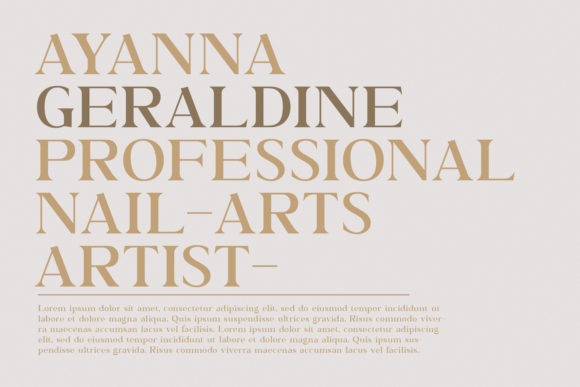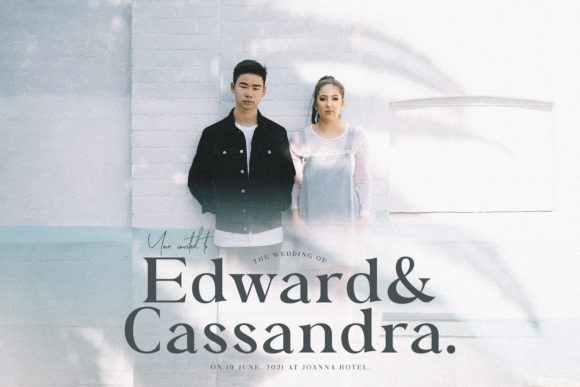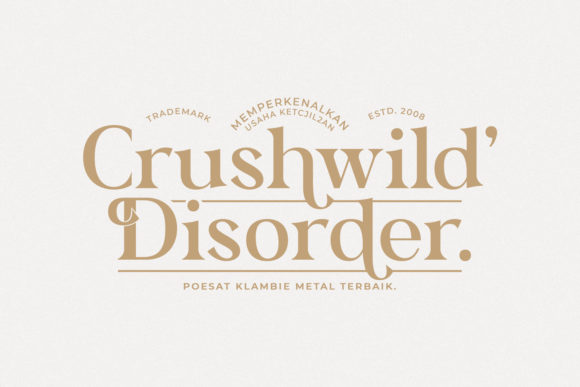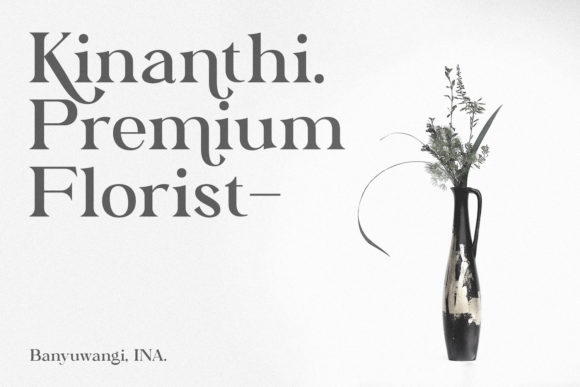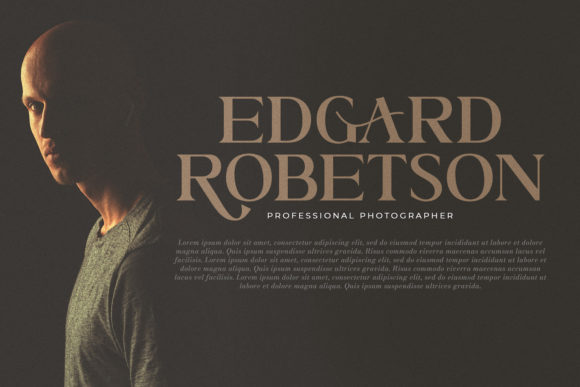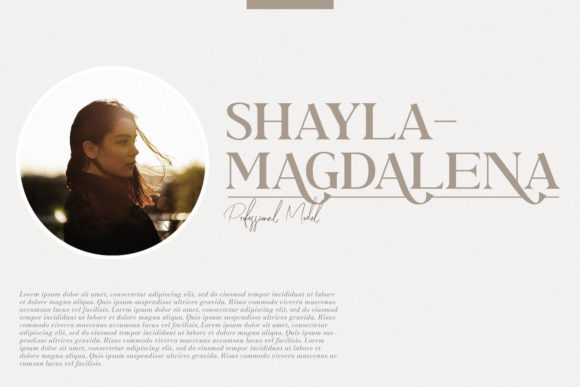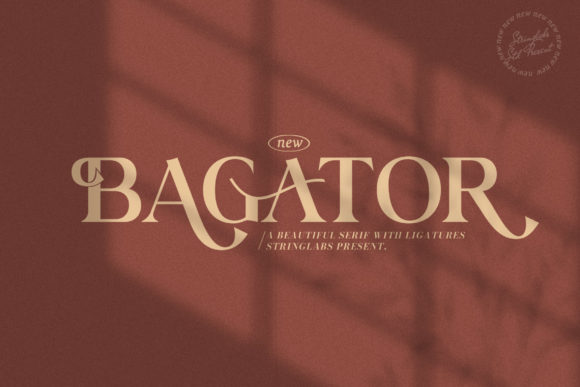
Discover the Elegance of Bagator Font: A Serif Masterpiece
Are you a designer or crafter looking for a font that exudes elegance and simplicity? Look no further than the Bagator font. This assertive yet distinct serif font has been making waves in the design world, and for good reason. Its unique blend of sophistication and approachability makes it perfect for a wide range of design ideas, both formal and informal.
The Characteristics of Bagator Font
Bagator font is a serif font, which means it features small lines or flourishes at the ends of the letters. This gives it a classic, timeless look that is both elegant and sophisticated. The font is assertive, meaning it makes a statement and demands attention. However, it is also distinct, with a unique character that sets it apart from other serif fonts.
One of the standout features of Bagator font is its simplicity. Despite its elegance, the font is remarkably clean and uncluttered, making it easy to read and use in a variety of design applications. This simplicity also makes it highly versatile, allowing it to be used in both formal and informal designs.
Uses for Bagator Font
So, what can you use Bagator font for? The possibilities are endless. Here are a few ideas to get you started:
- Logos and branding: The elegance and sophistication of Bagator font make it perfect for logos and branding materials. Use it to create a lasting impression and establish your brand’s identity.
- Print materials: From business cards to brochures, Bagator font is a great choice for any print material. Its classic look and feel will add a touch of sophistication to any design.
- Digital designs: Bagator font is also perfect for digital designs, including website headers, social media graphics, and more. Its clean and simple design makes it easy to read on a variety of devices.
- Crafting and DIY projects: If you’re a crafter or DIY enthusiast, Bagator font is a great choice for your projects. Use it to add a touch of elegance to your handmade cards, scrapbooking, and other crafts.
Why Choose Bagator Font?
So, why should you choose Bagator font over other serif fonts? Here are a few reasons:
- Unique character: Bagator font has a unique character that sets it apart from other serif fonts. Its assertive yet distinct design makes it a standout choice for any design project.
- Elegance and simplicity: The font’s elegance and simplicity make it perfect for a wide range of design ideas, both formal and informal.
- Versatility: Bagator font is highly versatile, making it suitable for use in a variety of design applications, from logos and branding to print materials and digital designs.
- Easy to read: The font’s clean and simple design makes it easy to read, even at small sizes.
Tips for Using Bagator Font
Here are a few tips for using Bagator font in your design projects:
- Pair it with a sans-serif font: Pairing Bagator font with a sans-serif font can create a striking contrast and add visual interest to your design.
- Use it sparingly: While Bagator font is elegant and sophisticated, it can be overwhelming if used too much. Use it sparingly to create a lasting impression.
- Experiment with colors: Bagator font looks great in a variety of colors, from classic black and white to bold and bright hues. Experiment with different colors to find the one that works best for your design.
In conclusion, Bagator font is a serif masterpiece that is perfect for designers and crafters looking for a font that exudes elegance and simplicity. Its unique character, versatility, and ease of use make it a great choice for a wide range of design ideas, both formal and informal. Whether you’re creating a logo, print materials, or digital designs, Bagator font is sure to make a lasting impression.